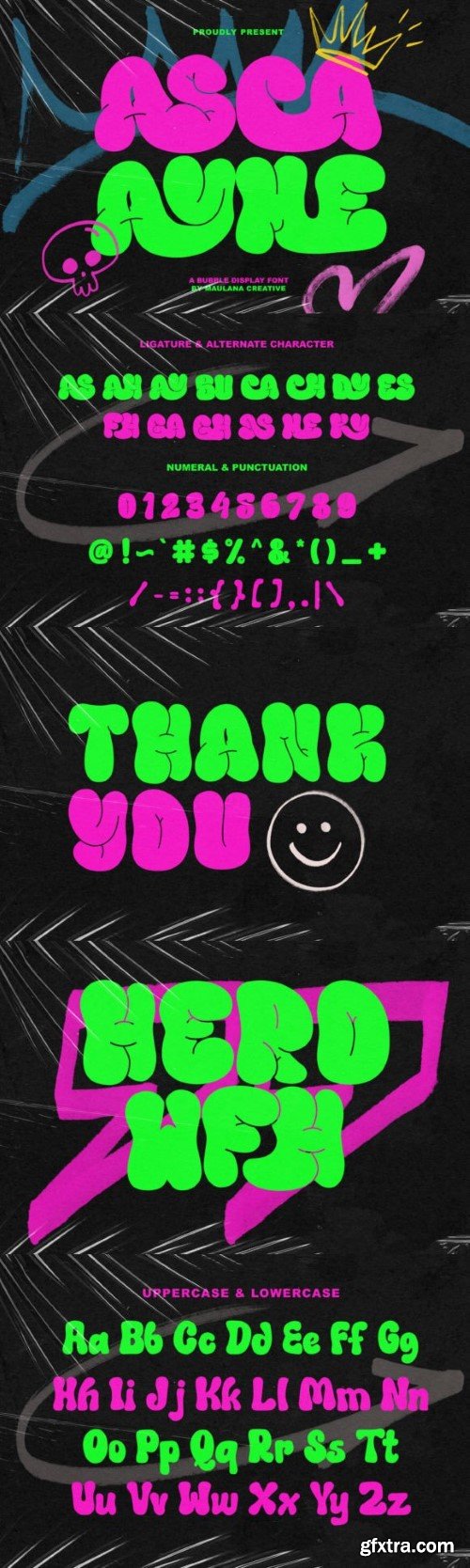
阿斯卡·艾米字体
Asca Ayme Bubble Display Font is a playful and bubbly typeface that adds a fun touch to your designs. With rounded letters and a cheerful vibe, it’s perfect for creating eye-catching titles and headers. Whether you’re working on posters, banners, or any project that needs a lively and youthful feel, Asca Ayme Bubble is the go-to choice for a delightful and energetic display font. Bring a burst of creativity to your design with this charming and easygoing typeface.